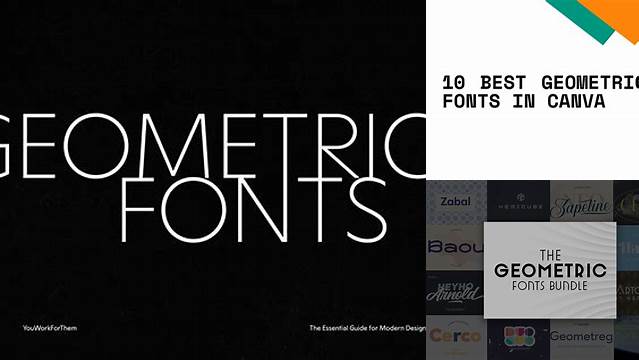
Geometric Fonts: A Designer's Guide
Geometric fonts, with their clean lines and precise shapes, have become a staple in modern design. They evoke a sense of structure, simplicity, and sophistication, making them ideal for a wide range of applications, from branding and advertising to web design and editorial layouts. In this comprehensive guide, we'll dive deep into the world of geometric fonts, exploring their history, characteristics, popular styles, best practices for usage, and much more. So, buckle up and let's embark on this geometric typography adventure!
1. What are Geometric Fonts?
Geometric fonts are typefaces characterized by their strong geometric shapes, such as circles, squares, and triangles. This design approach gives them a distinct, modern appearance. The beauty of geometric fonts lies in their simplicity and clarity. The letterforms are often constructed using basic shapes, resulting in a clean and minimalist aesthetic. Think of iconic typefaces like Futura, Gotham, and Montserrat β these are all prime examples of geometric sans-serif fonts. But guys, it's not just about sans-serifs! There are also geometric serif fonts out there, though they're less common. What sets geometric fonts apart is their consistent stroke widths and balanced proportions, which contribute to their readability and visual appeal.
2. History of Geometric Typefaces
The history of geometric fonts is fascinating, dating back to the early 20th century. The Bauhaus movement, with its emphasis on functionalism and clean design, played a pivotal role in the development of these typefaces. In the 1920s and 30s, designers like Paul Renner (Futura), Herbert Bayer (Universal), and Jan Tschichold (various sans-serifs) pioneered geometric fonts as a response to the ornate and decorative typefaces of the past. Futura, designed by Paul Renner in 1927, is often considered the quintessential geometric font. Its letterforms are based on simple geometric shapes, creating a clean and modern look that still resonates today. The rise of geometric fonts coincided with the rise of modernism in art and design, reflecting a broader shift towards simplicity, functionality, and abstraction.
3. Key Characteristics of Geometric Fonts
To really understand geometric fonts, it's important to grasp their key characteristics. The use of basic geometric shapes, like circles, squares, and triangles, is fundamental. This gives the letterforms a structured and consistent appearance. Another hallmark of geometric fonts is their uniform stroke weight. This means that the thickness of the lines forming the letters remains consistent throughout the typeface, contributing to its clean and balanced aesthetic. Think about how a perfectly drawn circle feels β thatβs the kind of precision geometric fonts strive for! Short ascenders and descenders (the parts of the letters that extend above and below the main body) are also common, further enhancing their compact and modern feel. The overall effect is one of clarity, simplicity, and a distinct lack of fussiness.
4. Popular Geometric Font Styles: Sans-Serif
When we talk about geometric fonts, sans-serif styles are often the first to come to mind. These fonts, lacking the small decorative strokes (serifs) found in traditional typefaces, perfectly embody the clean and modern aesthetic. Futura, as we mentioned earlier, is a classic example, with its almost perfectly circular O and precisely angled strokes. Gotham, another hugely popular geometric font, is known for its strong, sturdy letterforms and wide appeal. Montserrat, a more recent addition to the geometric sans-serif family, has quickly become a favorite for its versatility and readability. These geometric fonts are widely used in everything from logos and headlines to body text, thanks to their clarity and visual impact. The lack of serifs allows the shapes themselves to take center stage, creating a bold and contemporary feel.
5. Popular Geometric Font Styles: Serif
While less common than their sans-serif counterparts, geometric serif fonts offer a unique blend of classic elegance and modern simplicity. These fonts incorporate geometric principles into the serifed letterforms, resulting in a refined and sophisticated look. Think of typefaces like Playfair Display or Didot β while not strictly geometric in the same way as Futura, they exhibit a clear geometric structure and balance. Geometric serif fonts are often used in editorial design, branding, and other applications where a touch of classic elegance is desired. The geometric influence adds a contemporary twist to the traditional serif aesthetic, making them a versatile choice for a range of design projects. They bring a sense of formality and sophistication while still maintaining a clean and modern appeal.
6. Best Geometric Fonts for Headlines
Geometric fonts are fantastic for headlines because their clean lines and strong shapes command attention. A well-chosen geometric typeface can instantly elevate the visual impact of your text. For impactful headlines, consider using fonts like Bebas Neue, a tall and condensed sans-serif that makes a bold statement. Montserrat, with its various weights and styles, also works beautifully for headlines, providing both clarity and visual interest. Another great option is Gotham, known for its strong and authoritative presence. When using geometric fonts for headlines, think about the overall tone and message you want to convey. Do you want something bold and impactful, or clean and sophisticated? The right typeface can make all the difference. Experiment with different weights and sizes to find the perfect balance for your design.
7. Best Geometric Fonts for Body Text
Readability is crucial when choosing geometric fonts for body text. While the clean lines and simplicity are appealing, you need to ensure the font remains easy on the eyes when used in longer paragraphs. Typefaces like Lato and Open Sans are excellent choices, offering a balanced combination of geometric structure and legibility. These geometric fonts have slightly wider letterforms and generous spacing, making them comfortable to read even in extended text. Montserrat, again, proves its versatility, working well for both headlines and body text. When selecting a geometric font for body text, consider factors like x-height (the height of lowercase letters) and letter spacing. A font with a good x-height and ample spacing will enhance readability and prevent eye strain. Remember, the goal is to create a pleasant reading experience for your audience.
8. Geometric Fonts in Logo Design
Geometric fonts are a popular choice for logo design, and for good reason. Their clean and modern aesthetic can help convey a sense of professionalism, trustworthiness, and innovation. Think of brands like Adidas (using a modified Futura) or Airbnb (using a custom geometric sans-serif) β their logos are instantly recognizable and exude a contemporary feel. When using geometric fonts in logo design, it's important to consider the brand's personality and target audience. A bold and geometric font can be perfect for a tech startup, while a more refined geometric serif might suit a luxury brand. Simplicity is key when designing a logo, and geometric fonts lend themselves well to this principle. The clean lines and balanced proportions create a visually appealing and memorable mark.
9. Pairing Geometric Fonts with Other Typefaces
Choosing the right font pairing can significantly enhance the overall design of your project. When working with geometric fonts, it's important to select complementary typefaces that create a harmonious balance. A common approach is to pair a geometric sans-serif with a serif font, creating a contrast between the modern and the traditional. For example, you might combine Futura with Garamond or Montserrat with a classic serif like Times New Roman. Another option is to pair different weights and styles within the same geometric font family. Using a bold geometric font for headlines and a lighter weight for body text can create a clear visual hierarchy. The key is to experiment and find combinations that feel both visually appealing and easy to read. A well-chosen font pairing can elevate your design from good to great.
10. Using Geometric Fonts in Web Design
Geometric fonts are a fantastic choice for web design, offering a clean and modern look that works well across various devices and screen sizes. Their legibility and visual clarity make them ideal for both headlines and body text on websites. Google Fonts offers a wide range of free geometric fonts, such as Roboto, Open Sans, and Lato, which are optimized for web use. When using geometric fonts on the web, it's important to consider factors like font loading speed and responsiveness. Choose font formats that are web-optimized (like WOFF and WOFF2) to ensure fast loading times. Also, test your font choices on different devices and browsers to ensure they render correctly. The right geometric font can enhance the user experience and contribute to a professional and engaging website design.
11. Geometric Fonts in Print Design
Geometric fonts work equally well in print design, lending a modern and sophisticated touch to everything from brochures and posters to magazines and books. Their clean lines and balanced proportions make them suitable for a wide range of print applications. When using geometric fonts in print, consider factors like paper stock and printing techniques. A heavier weight geometric font might work well on coated paper, while a lighter weight might be more suitable for uncoated paper. Also, pay attention to the spacing and leading (the space between lines of text) to ensure optimal readability. Whether you're designing a minimalist brochure or a bold poster, a well-chosen geometric font can add a touch of contemporary elegance to your print project. The precision and clarity of these typefaces make them a reliable choice for creating visually appealing and effective print materials.
12. The Psychology of Geometric Fonts
Did you know that fonts can evoke specific emotions and associations? Geometric fonts, with their clean lines and structured forms, often convey a sense of modernity, efficiency, and stability. They can project an image of trustworthiness and professionalism, making them a popular choice for businesses in industries like technology, finance, and engineering. The simplicity and clarity of geometric fonts can also evoke feelings of calmness and order. Think about how a well-organized space can make you feel β that's the kind of effect geometric fonts can have on your audience. Understanding the psychology of fonts can help you make more informed design choices and create visual communications that resonate with your target audience. When you choose a geometric font, you're not just choosing a typeface; you're choosing a mood and a message.
13. Geometric Fonts vs. Other Font Styles
Geometric fonts are just one style in a vast world of typography. Comparing them to other font styles can help you understand their unique strengths and when to use them most effectively. Compared to humanist sans-serif fonts (like Helvetica or Arial), geometric fonts have a more constructed and less organic feel. While humanist sans-serifs are often praised for their readability, geometric fonts offer a more distinctive and modern aesthetic. Compared to serif fonts, geometric fonts lack the small decorative strokes that give serifs their classic elegance. However, geometric fonts compensate with their clean lines and strong geometric shapes. The choice between geometric and other font styles ultimately depends on the specific needs of your project and the message you want to convey. Sometimes, a mix of different styles can create the most visually interesting and effective result.
14. Trends in Geometric Typography
The world of typography is constantly evolving, and there are always new trends emerging. In recent years, we've seen a resurgence in the popularity of geometric fonts, driven by the demand for clean, modern, and minimalist designs. One trend is the use of variable fonts, which allow for greater flexibility and customization. Variable geometric fonts enable designers to adjust parameters like weight, width, and slant, creating a wide range of styles within a single font file. Another trend is the use of geometric fonts in bold and impactful ways, such as in large-scale typography and headline design. The clean lines and strong shapes of geometric fonts make them ideal for creating visually striking statements. Keeping an eye on typographic trends can help you stay ahead of the curve and create designs that feel fresh and contemporary.
15. The Future of Geometric Fonts
What does the future hold for geometric fonts? Given their enduring popularity and versatility, it's safe to say that they will continue to play a significant role in design for years to come. As technology evolves, we can expect to see even more innovative uses of geometric fonts, particularly in digital design. The rise of virtual reality (VR) and augmented reality (AR) may lead to new applications for geometric typography, such as in immersive user interfaces and 3D text designs. We can also anticipate further developments in variable font technology, allowing for even greater customization and creative expression. Whether used in print, web, or emerging technologies, geometric fonts will likely remain a staple of modern design, thanks to their timeless appeal and adaptability. The future of geometric typography looks bright, with endless possibilities for innovation and creative exploration.
16. Geometric Fonts and Branding
Your brand's visual identity is crucial, and geometric fonts can be a powerful tool in crafting a strong brand image. Their clean, modern aesthetic can convey a sense of sophistication and innovation. When selecting a geometric font for your branding, think about your brand's personality and values. Do you want to project a sense of stability and trustworthiness? A sturdy geometric font like Gotham might be a good choice. Are you aiming for a more minimalist and tech-forward look? Consider Futura or Montserrat. Using geometric fonts consistently across your branding materials β from your logo and website to your marketing collateral β can help create a cohesive and recognizable brand identity. Remember, the font you choose speaks volumes about your brand, so make sure it aligns with your overall message and target audience.
17. Geometric Fonts in Editorial Design
Editorial design, whether for magazines, books, or online publications, relies heavily on typography. Geometric fonts can bring a clean and contemporary feel to your editorial layouts. For headlines, bold geometric fonts like Bebas Neue or Montserrat can grab the reader's attention. For body text, choose a geometric font with good readability, such as Lato or Open Sans. When designing for editorial, consider the overall tone and style of the publication. A minimalist magazine might benefit from a clean and understated geometric font, while a more vibrant and energetic publication could opt for a bolder and more expressive typeface. The right geometric font can enhance the reading experience and contribute to a visually engaging editorial design. It's all about finding the perfect balance between aesthetics and legibility.
18. Free Geometric Fonts vs. Premium Geometric Fonts
When it comes to geometric fonts, you have a choice between free and premium options. Free geometric fonts, like those available on Google Fonts, are a great resource for designers on a budget. Typefaces like Roboto, Open Sans, and Lato offer excellent quality and versatility, making them suitable for a wide range of projects. Premium geometric fonts, on the other hand, often come with a wider range of weights, styles, and features. They may also be more meticulously crafted and offer better kerning (the spacing between letters) and overall refinement. Investing in premium geometric fonts can be a good choice for professional designers who need the highest level of quality and flexibility. However, for many projects, free geometric fonts provide an excellent starting point. The best option depends on your specific needs, budget, and the level of detail required for your design.
19. Geometric Fonts and Minimalism
Minimalism, a design philosophy that emphasizes simplicity and functionality, pairs perfectly with geometric fonts. The clean lines and uncluttered forms of geometric typefaces align seamlessly with the minimalist aesthetic. When designing in a minimalist style, a geometric font can be a powerful tool for creating a sense of order and clarity. Think about minimalist posters, websites, or logos β often, you'll find geometric fonts playing a starring role. Typefaces like Futura, Montserrat, and Bebas Neue are particularly well-suited for minimalist designs. The key is to use geometric fonts sparingly and strategically, allowing the simplicity of the typography to shine. A well-chosen geometric font can enhance the overall minimalist aesthetic and create a visually impactful and uncluttered design.
20. Geometric Fonts in Mobile App Design
Mobile app design requires careful consideration of typography, as screen sizes are limited and readability is paramount. Geometric fonts can be an excellent choice for mobile apps, offering a clean and modern look that works well on small screens. When selecting a geometric font for a mobile app, prioritize legibility and clarity. Typefaces like Roboto, Open Sans, and Lato are all great options, offering good readability even at smaller sizes. Also, consider the font's weight and spacing to ensure text is easy on the eyes. A well-designed mobile app should have a consistent typographic hierarchy, using different weights and sizes of geometric fonts to create visual interest and guide the user's attention. The right geometric font can enhance the user experience and contribute to a polished and professional mobile app design.
21. Geometric Fonts and Data Visualization
Data visualization, the art of presenting data in a visual format, relies on clear and effective typography. Geometric fonts can be a valuable asset in data visualization design, offering a clean and neutral aesthetic that doesn't distract from the data itself. When choosing a geometric font for data visualization, legibility is crucial. Typefaces like Roboto, Open Sans, and Lato are all excellent choices, providing clear and readable text even in charts and graphs. Use geometric fonts consistently throughout your data visualizations to create a cohesive and professional look. Also, consider using different weights and sizes of the font to create visual hierarchy and emphasize key data points. The goal is to present the data in a way that is both visually appealing and easy to understand, and the right geometric font can help you achieve that.
22. Geometric Fonts in Motion Graphics
Motion graphics, the dynamic art of combining graphics and animation, often requires typography that is both visually appealing and easy to read. Geometric fonts can be a great choice for motion graphics, offering a clean and modern look that works well in animated contexts. When selecting a geometric font for motion graphics, consider its legibility when in motion. Typefaces like Montserrat, Gotham, and Bebas Neue are all good options, offering clear and readable letterforms even when animated. Also, think about how the geometric font interacts with other design elements in your motion graphics piece. The font should complement the overall visual style and contribute to the story you're trying to tell. The right geometric font can enhance the visual impact of your motion graphics and make your message more engaging.
23. Geometric Fonts and User Interface (UI) Design
User interface (UI) design, the art of creating intuitive and user-friendly interfaces, relies heavily on typography. Geometric fonts can be a valuable tool in UI design, offering a clean and modern look that enhances the user experience. When choosing a geometric font for UI design, prioritize legibility and clarity. Typefaces like Roboto, Open Sans, and Lato are all excellent choices, providing clear and readable text across various screen sizes and resolutions. Consistency is key in UI design, so use geometric fonts consistently throughout your interface. Also, consider the font's weight and spacing to ensure optimal readability. The right geometric font can make your UI more intuitive, accessible, and visually appealing.
24. Geometric Fonts and Accessibility
Accessibility, the practice of designing products and services that are usable by people with disabilities, is an important consideration in design. Geometric fonts can be a good choice for accessible design, as their clean lines and clear letterforms can enhance readability for people with visual impairments. When selecting a geometric font for accessibility, prioritize legibility and contrast. Typefaces with good x-height and ample spacing are generally easier to read. Also, ensure that there is sufficient contrast between the text and the background color. Using different weights and sizes of geometric fonts can also help create visual hierarchy and make content more accessible. The right geometric font can contribute to a more inclusive and user-friendly design.
25. Geometric Fonts in Environmental Graphics
Environmental graphics, the design of visual elements in physical spaces, such as signage and wayfinding systems, often requires typography that is both visually appealing and highly legible. Geometric fonts can be an excellent choice for environmental graphics, offering a clean and modern look that works well in a variety of settings. When selecting a geometric font for environmental graphics, prioritize legibility from a distance. Typefaces with strong letterforms and good spacing are essential. Also, consider the font's weight and color to ensure it stands out against the background. Using geometric fonts consistently throughout your environmental graphics can help create a cohesive and professional look. The right geometric font can enhance the visual impact of your signage and improve wayfinding in physical spaces.
26. Geometric Fonts and Information Architecture
Information architecture (IA), the practice of organizing and structuring content to make it easier to find and use, often relies on typography to create a clear visual hierarchy. Geometric fonts can be a valuable tool in IA design, offering a clean and modern look that enhances the usability of websites, apps, and other digital products. When using geometric fonts in IA, prioritize clarity and consistency. Use different weights and sizes of the font to create a visual hierarchy and guide the user's attention. Also, consider the font's legibility and ensure that it is easy to read across various devices and screen sizes. A well-chosen geometric font can help users navigate your content more efficiently and find the information they need quickly. The goal is to create a clear and intuitive information architecture, and typography plays a crucial role in achieving that.
27. Geometric Fonts and 3D Design
3D design, the art of creating three-dimensional objects and environments, often incorporates typography to add visual interest and convey information. Geometric fonts can be a great choice for 3D design, offering a clean and modern look that works well in three-dimensional space. When selecting a geometric font for 3D design, consider its shape and form. Typefaces with strong geometric shapes and balanced proportions often translate well to 3D. Also, think about how the geometric font interacts with the lighting and materials in your 3D scene. Experiment with different textures and effects to create a visually compelling and realistic look. The right geometric font can enhance the visual impact of your 3D design and add a touch of sophistication.
28. Geometric Fonts and the Bauhaus Movement
The Bauhaus movement, a hugely influential art and design school in Germany in the early 20th century, had a profound impact on the development of geometric fonts. The Bauhaus emphasized functionalism, simplicity, and the use of geometric forms, principles that are clearly reflected in geometric typography. Many iconic geometric fonts, such as Futura and Universal, were created by designers associated with the Bauhaus. These typefaces embodied the Bauhaus spirit, rejecting ornamentation and embracing clean lines and geometric shapes. The Bauhaus philosophy continues to influence design today, and geometric fonts remain a testament to the movement's enduring legacy. Understanding the historical connection between geometric fonts and the Bauhaus can provide valuable insights into their design principles and applications.
29. Geometric Fonts and Swiss Style
Swiss Style, also known as International Typographic Style, is a design movement that emerged in Switzerland in the mid-20th century. It emphasizes clarity, objectivity, and the use of grid systems, principles that align closely with the aesthetic of geometric fonts. Swiss Style designs often feature geometric sans-serif typefaces, such as Helvetica and Univers, which provide a clean and neutral backdrop for the content. The Swiss Style approach to typography is characterized by its precision, legibility, and functionalism. Geometric fonts are a natural fit for this style, offering a visual language that is both modern and timeless. The combination of geometric fonts and Swiss Style principles can result in visually striking and highly effective designs.
30. The Enduring Appeal of Geometric Fonts
Why are geometric fonts so popular? Their enduring appeal lies in their versatility, clarity, and timeless aesthetic. Geometric fonts work well in a wide range of design applications, from branding and advertising to web design and editorial layouts. Their clean lines and balanced proportions make them easy to read and visually appealing. Whether used for headlines or body text, geometric fonts can convey a sense of modernity and sophistication. Their association with influential design movements like the Bauhaus and Swiss Style further contributes to their prestige. Geometric fonts have stood the test of time, remaining a staple of modern design for decades. Their clean, simple, and elegant aesthetic ensures their continued relevance in the ever-evolving world of typography. So, next time you're choosing a font, consider the power and versatility of geometric typefaces. You might just find the perfect fit for your project!